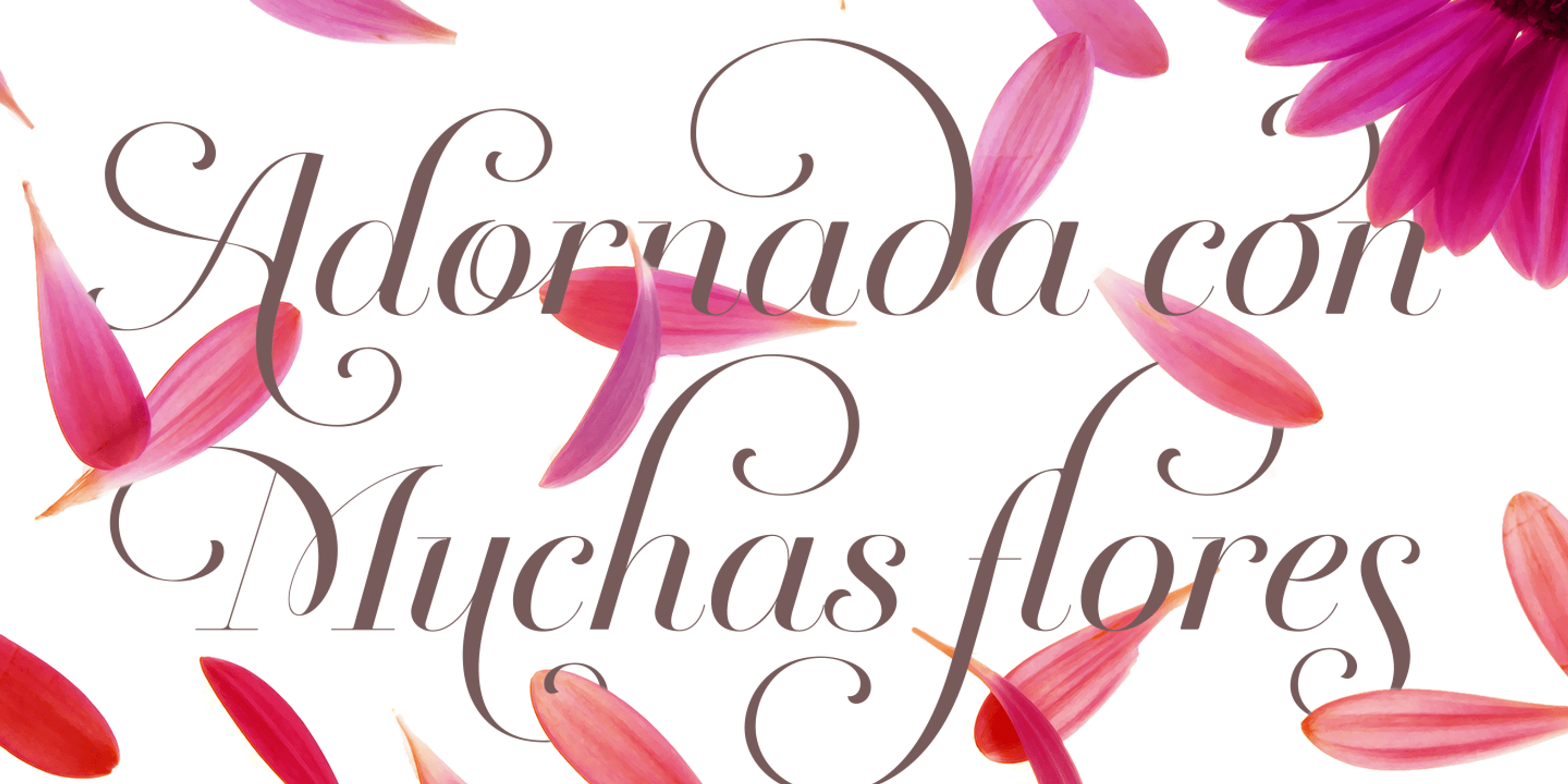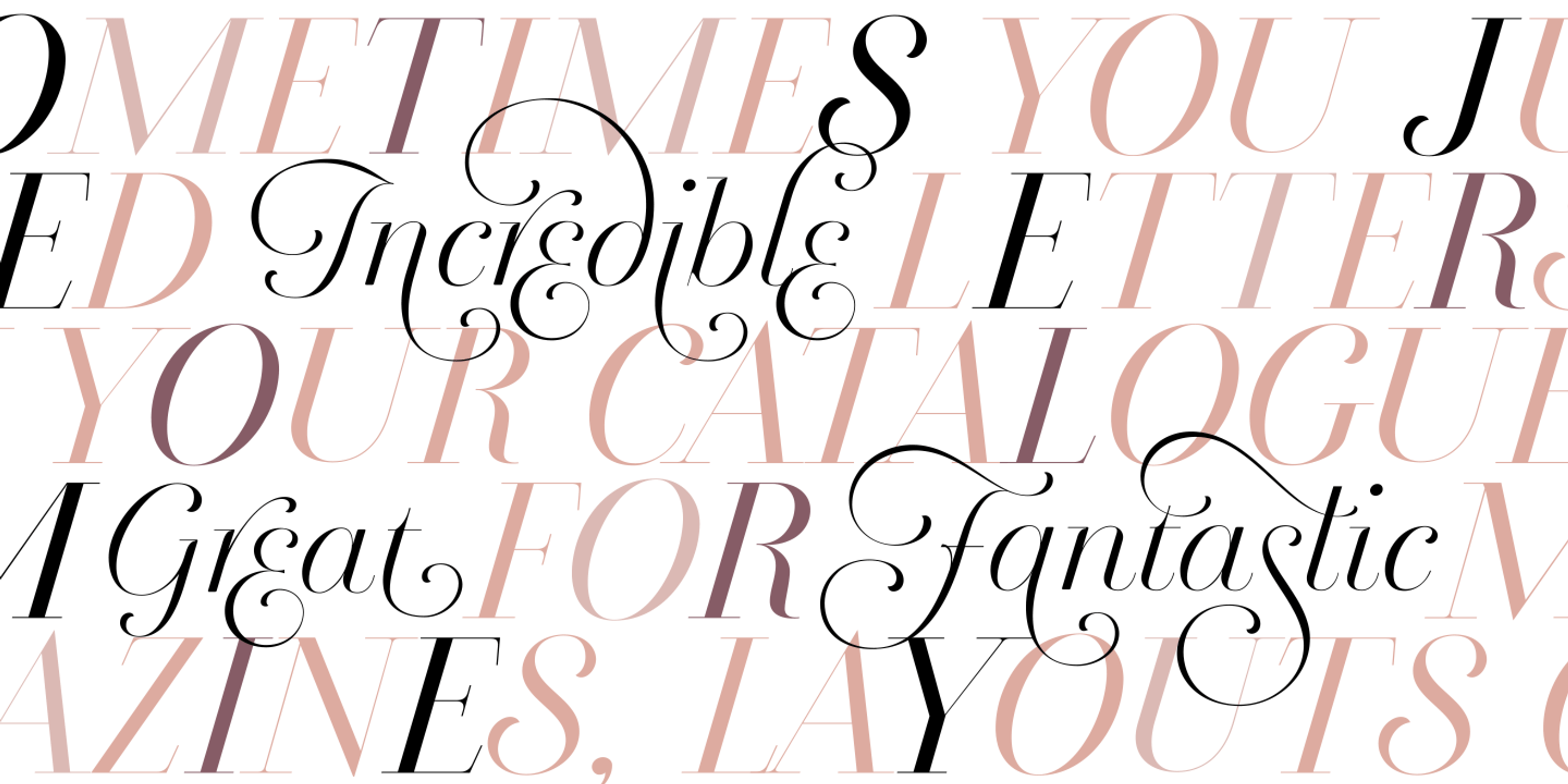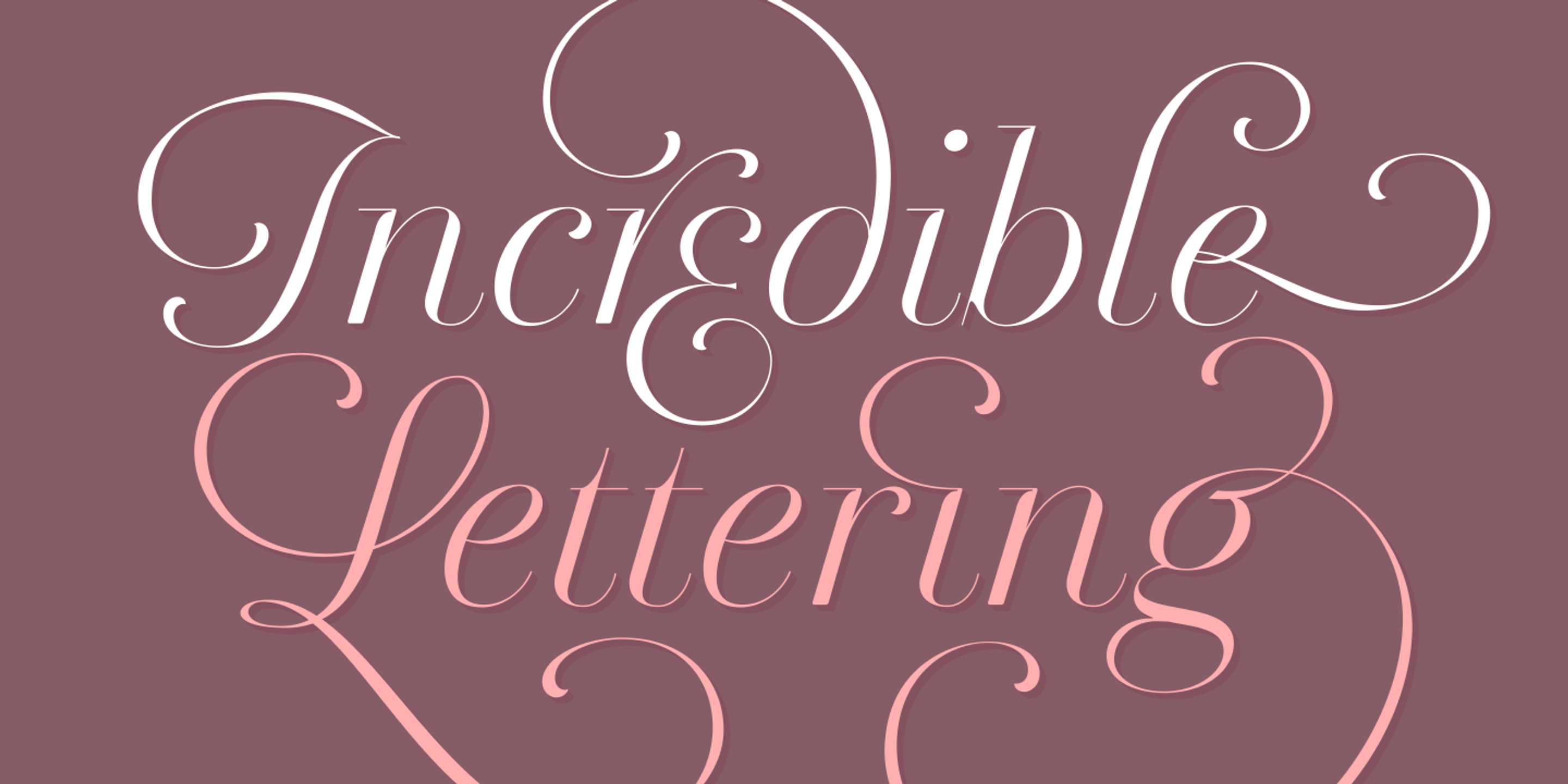
Breathe Neue font by Sproviero Type — the word “Symphony” in an elegant, high-contrast serif script with swash capitals, overlaid on a pair of light pink headphones
Breathe Neue font by Sproviero Type — the word “Swashes” in an elegant, high-contrast serif script with prominent swashes on the capital S and the lowercase h and s.
Breathe Neue font by Sproviero Type — the words “Adornada con Muchas flores” in a high-contrast serif italic, with pink flower petals scattered around them
Breathe Neue font by Sproviero Type — the words “The Quick Foxes” and “The Lazy Dogs” in a white high-contrast connected script with elaborate swashes, and the word “JUMPING” in pink upright high-contrast serif letters overlaid on the script.
Breathe Neue font by Sproviero Type — the words “THE TYPOGRAPHY LOVERS 2019” in upright and swashy italic serif letters on a pink background, next to a column of upright and italic serif words in black and pink.
Breathe Neue font by Sproviero Type — the words “Incredible” and “Fantastic” in a black connected script with swashes, overlaying a pattern of upright serif letters in shades of pink and purple that spell out “Sometimes you just need incredible letters for your catalogue. Great for fantastic magazines, layouts, & more.”
Breathe Neue font by Sproviero Type — the phrase “Behold The Elegance of the well done Swash” in an ornate, high-contrast script with swash capitals, above a black and white mountain range
Breathe Neue font by Sproviero Type — the words “Incredible Lettering” in a high-contrast connected script, with the first word in white and the second in pink, both with swash capitals and ascenders/descenders.
Breathe Neue is a swashy serif font family answering the question, “what if the Didone style had been turned into a script?” Delighted by the typographic works of Didot and his followers at the beginning of 1800, Breathe Neue answers this question with resounding beauty, refinement, and polish. The opportunities for extravagant visual design are limitless. Above all else, experiment with its swashes and flourishes, and watch as your words move as if they are alive.